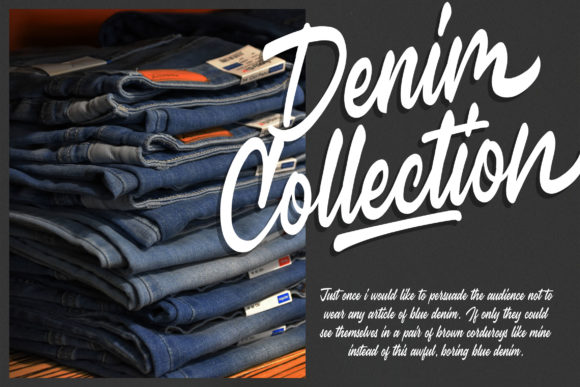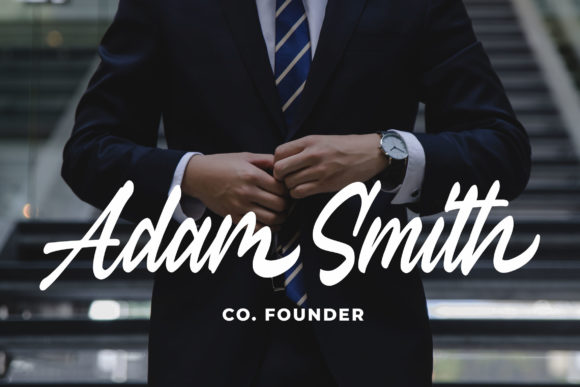
Hayline Font
db-ku.com - Script & Handwritten -- Hayline delivers a charming and bold font experience that will turn any design idea into a true standout!